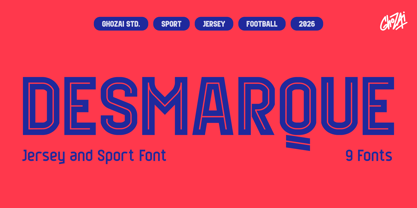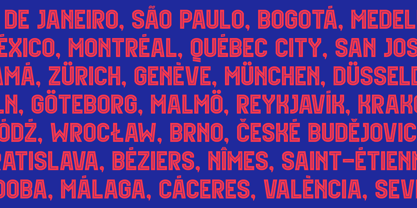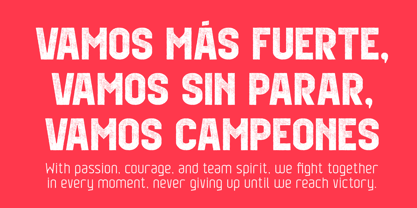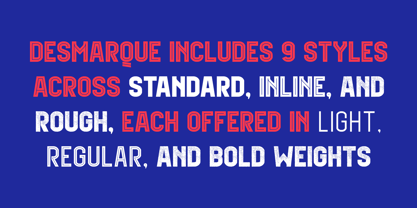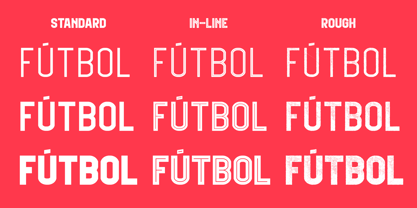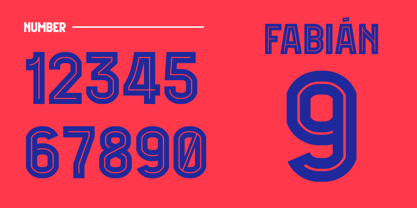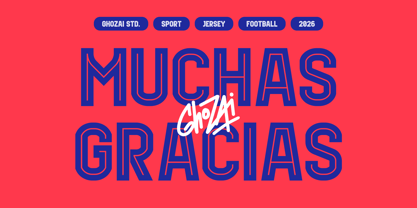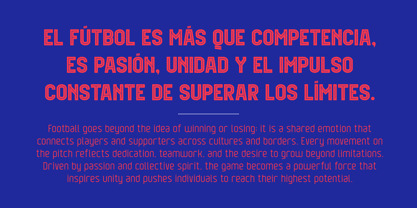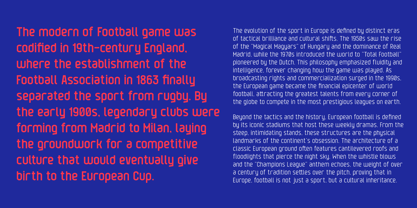
Desmarque
by Ghozai Studio
The Desmarque Font Family was designed by Manzur Ghozaali and published by Ghozai Studio. Desmarque contains 9 styles and family package options. More about this family
Desmarque is a versatile grotesk-sans that inspired by sport jersey, Desmarque font family is offers 9 distinct fonts, including styles such as standard, in-line, and rough/textured. Each style is available in three weights: light, regular, and bold. This extensive selection of weights and styles is enhanced by a rich set of symbols, OpenType features, tabular lining numbers, and multilingual glyph support, ensuring adaptability for various languages and design needs. With its modern, clean, and bold aesthetic, Desmarque is perfect for a wide range of applications, including display, branding, signage, festival posters, sports, and more. Whether you're crafting impactful headlines, unique logos, or clear signage, Desmarque seamlessly merges style with functionality. Its ability to adapt to different design styles makes it an excellent choice for any project that requires a bold and contemporary flair.
Designers: Manzur Ghozaali
Foundry: Ghozai Studio